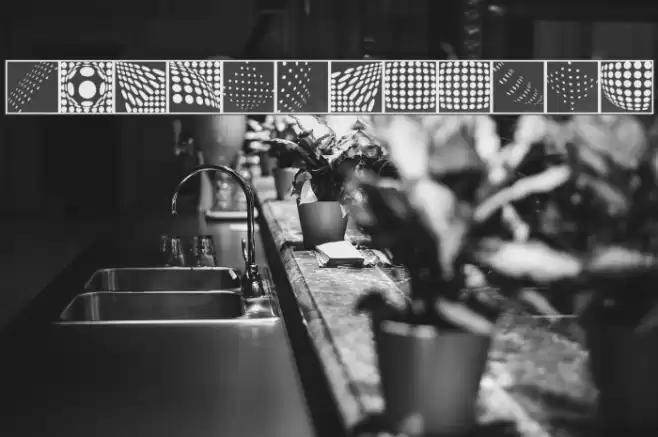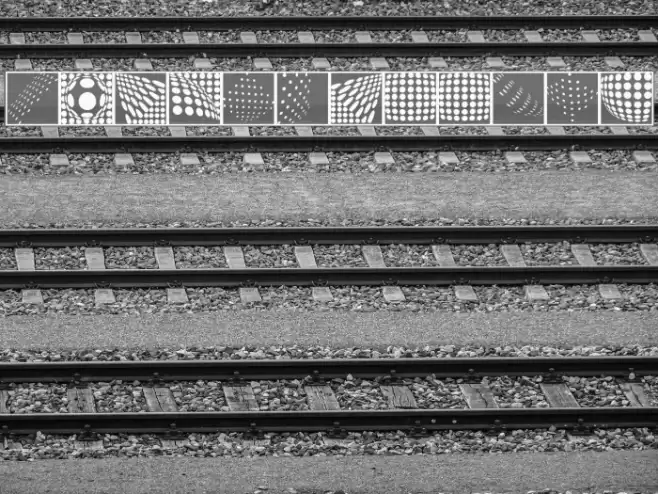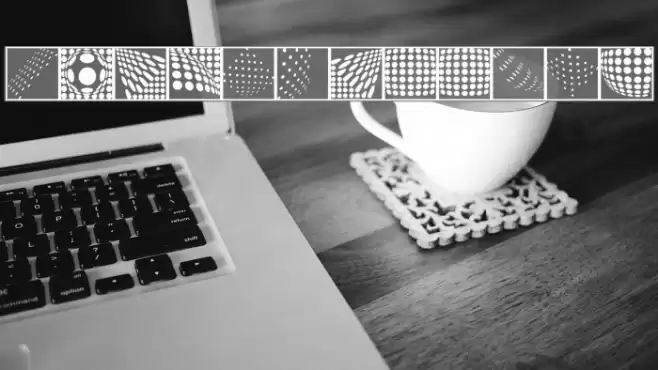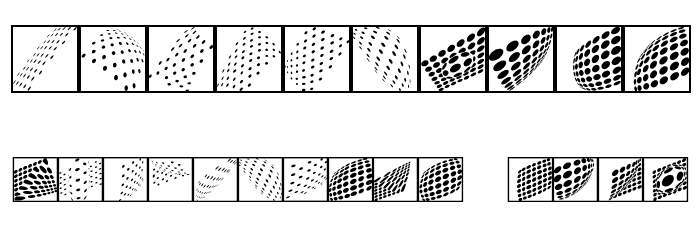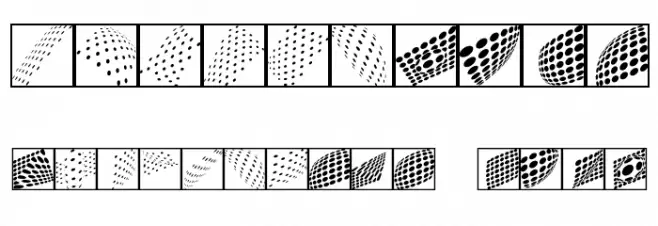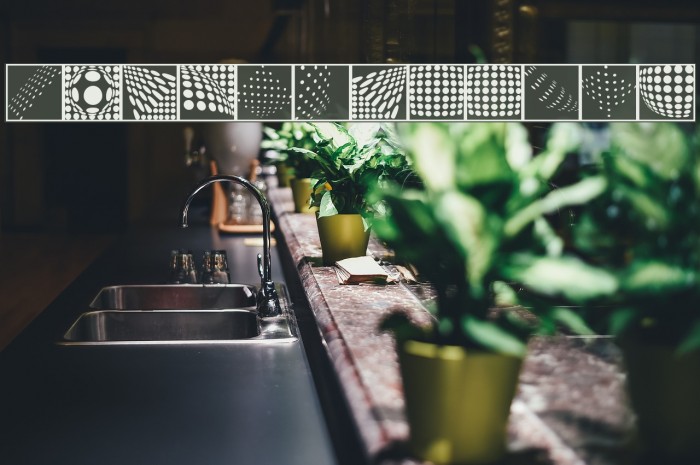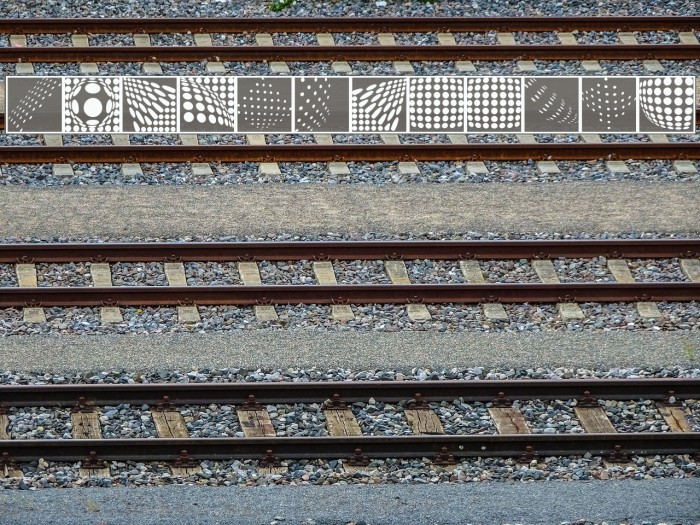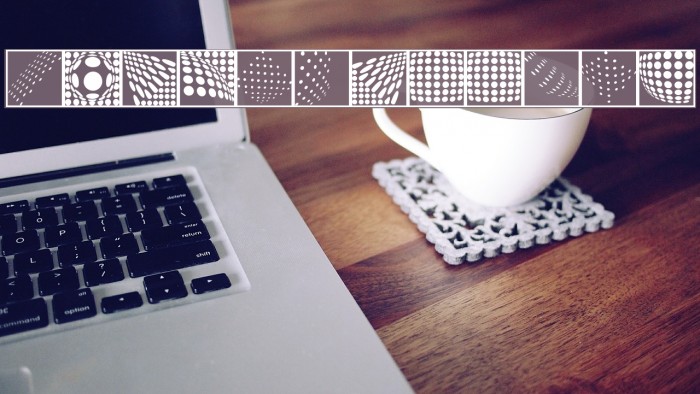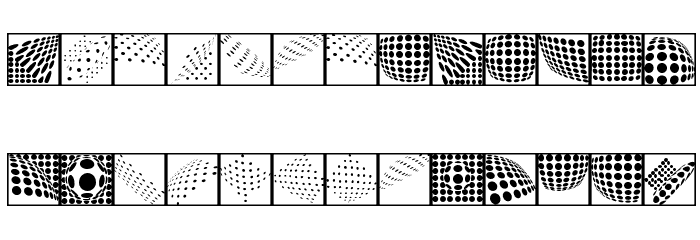
PointGallery Font
PointGallery Description
A highly abstract, geometric font composed of black and white dot patterns forming each character within a square grid, creating a sense of movement and texture. Each glyph is constructed from varying densities and arrangements of dots, resulting in a visually dynamic and experimental appearance.
Abstract geometric font using dot patterns for each character from Uncategorized fonts.
- Proposed Projects: Poster design, album covers, experimental branding, digital art, modern art installations.
- Overall Style: Decorative, Experimental, Modern
- Use Case: Logos, Headlines, Posters, Artistic projects